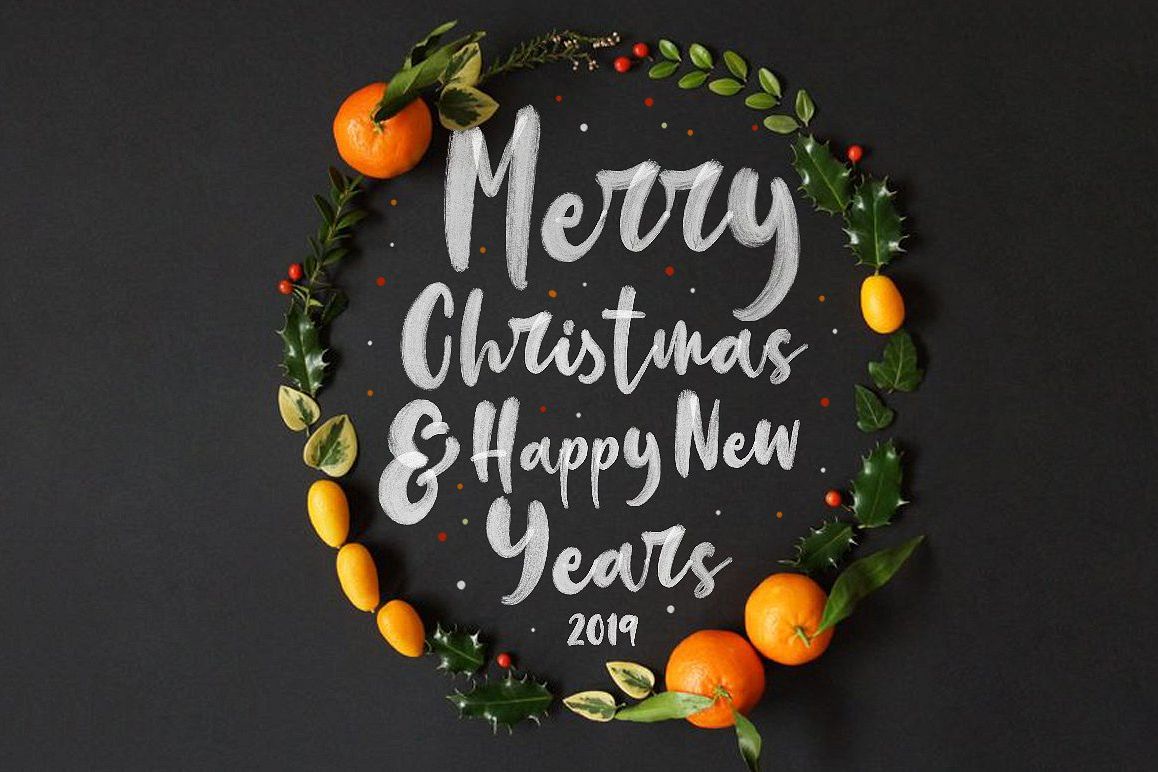
Callistar SVG & Regular Font
Introducing Callistar our latest signature font SVG.. Made with Brush element that make this font so Messy but have classy touch. Callistar also comes with Ligatures and Stylistic Alternates that will make the signature font more real. Callistar is very best choice fonts for : Wedding Invitation, branding, web content, quotes, Posters, Logos, Print Ads, Digital Ads, Promotion Product etcFeatures
• Character set A-Z with special uppercase letters
• Discretionary Ligatures
• multilingual